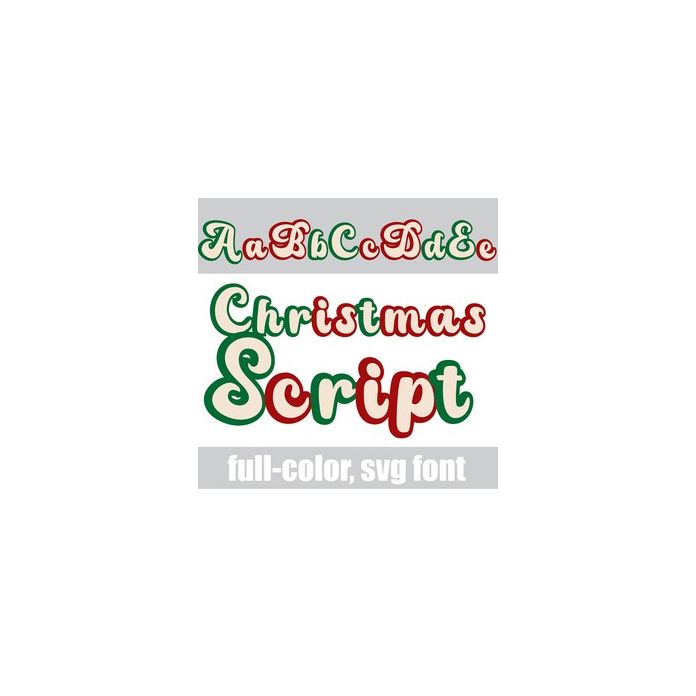
This full-color font is a pretty, hand-written script with 3d shadow in a Christmas color palette. There is an alt case w/ additional colors you can access through your system or Silhouette's glyph map.